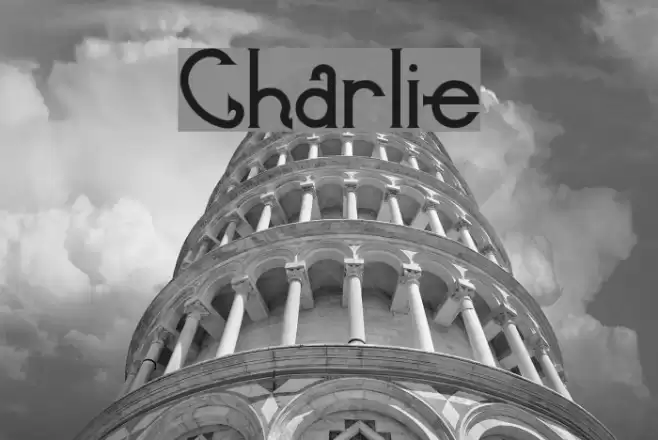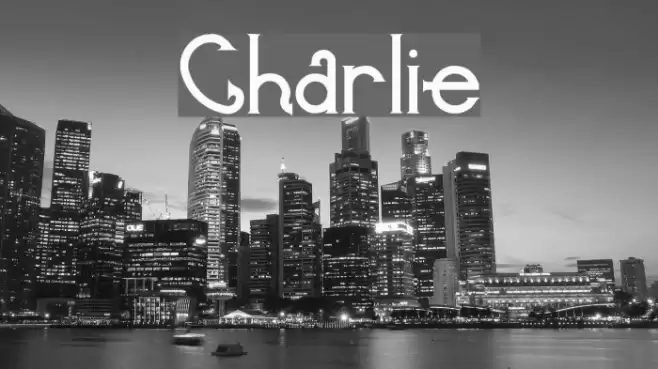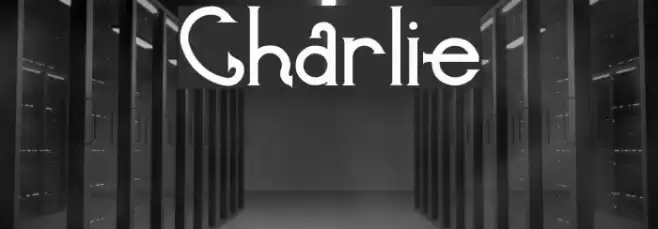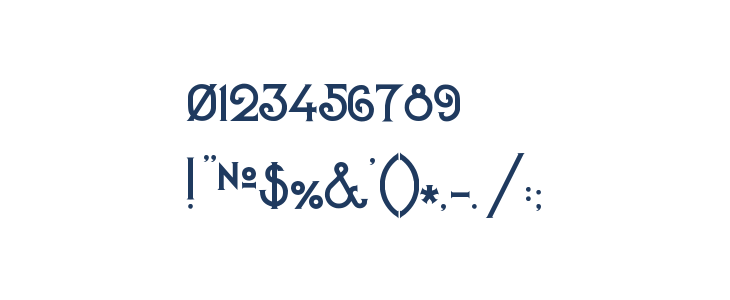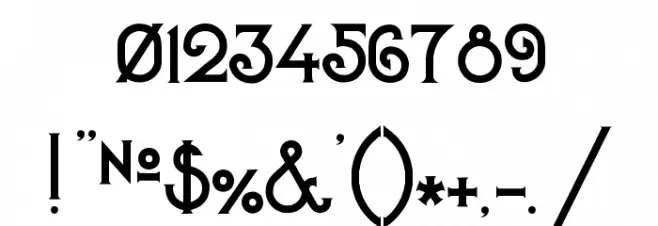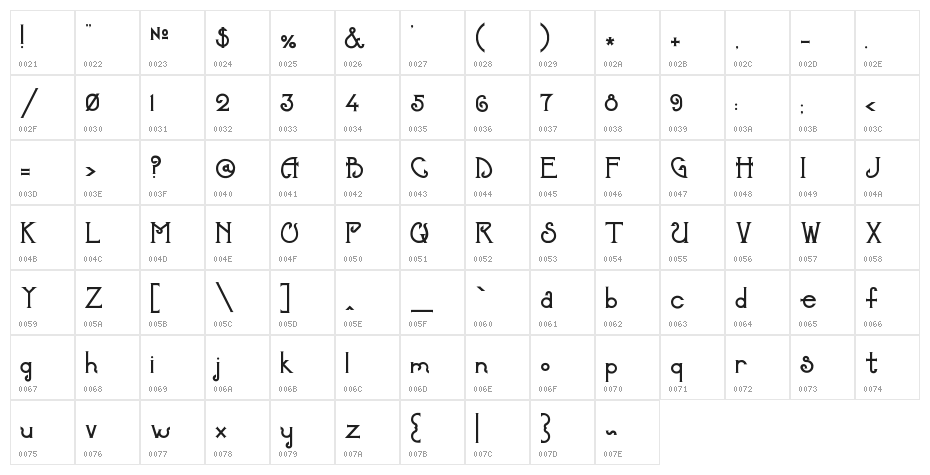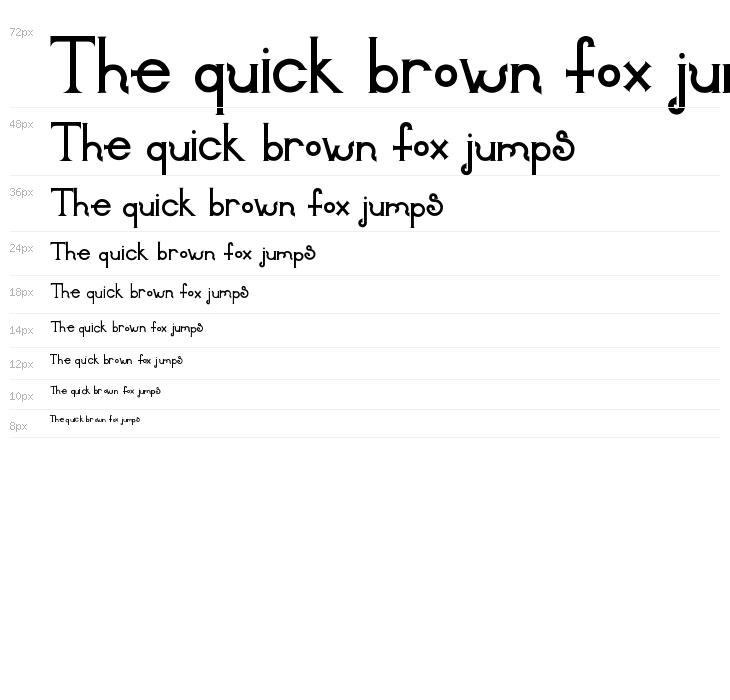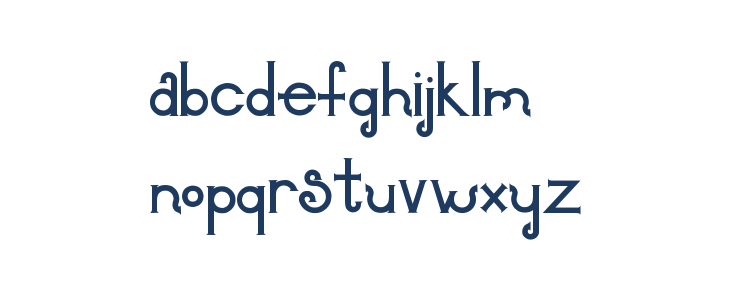
Charlie Font
Charlie Description
This font features a unique and artistic design with a blend of geometric and decorative elements. The uppercase letters are characterized by bold, angular lines and intricate curves, creating a striking visual impact. The lowercase letters maintain a consistent style, with some characters incorporating playful loops and swirls. The numerals are distinct, with a mix of circular and angular shapes that complement the overall aesthetic. Special characters are creatively designed, adding to the font's decorative appeal. The font's style is both modern and vintage, making it versatile for various creative projects.
A decorative font with geometric and artistic elements, blending modern and vintage styles from Uncategorized fonts.
- Proposed Projects: Ideal for branding, logos, posters, and creative design projects that require a bold and artistic touch.
- Use Case: Logos, Posters, Branding